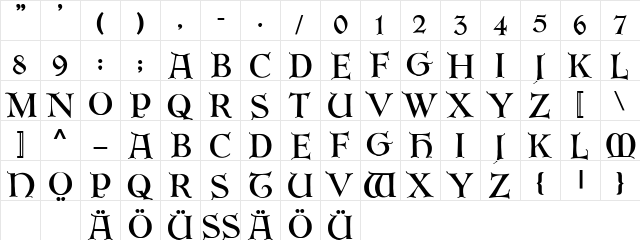
Erbar Initialen Regular
Design Context for Erbar Initialen Typeface
Erbar Initialen is a composed and adaptable typeface that performs quietly and consistently across a wide range of design contexts.